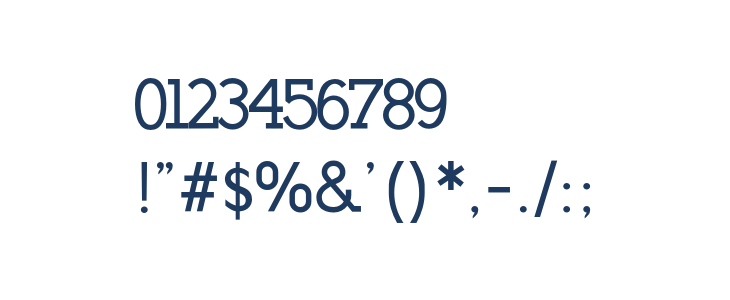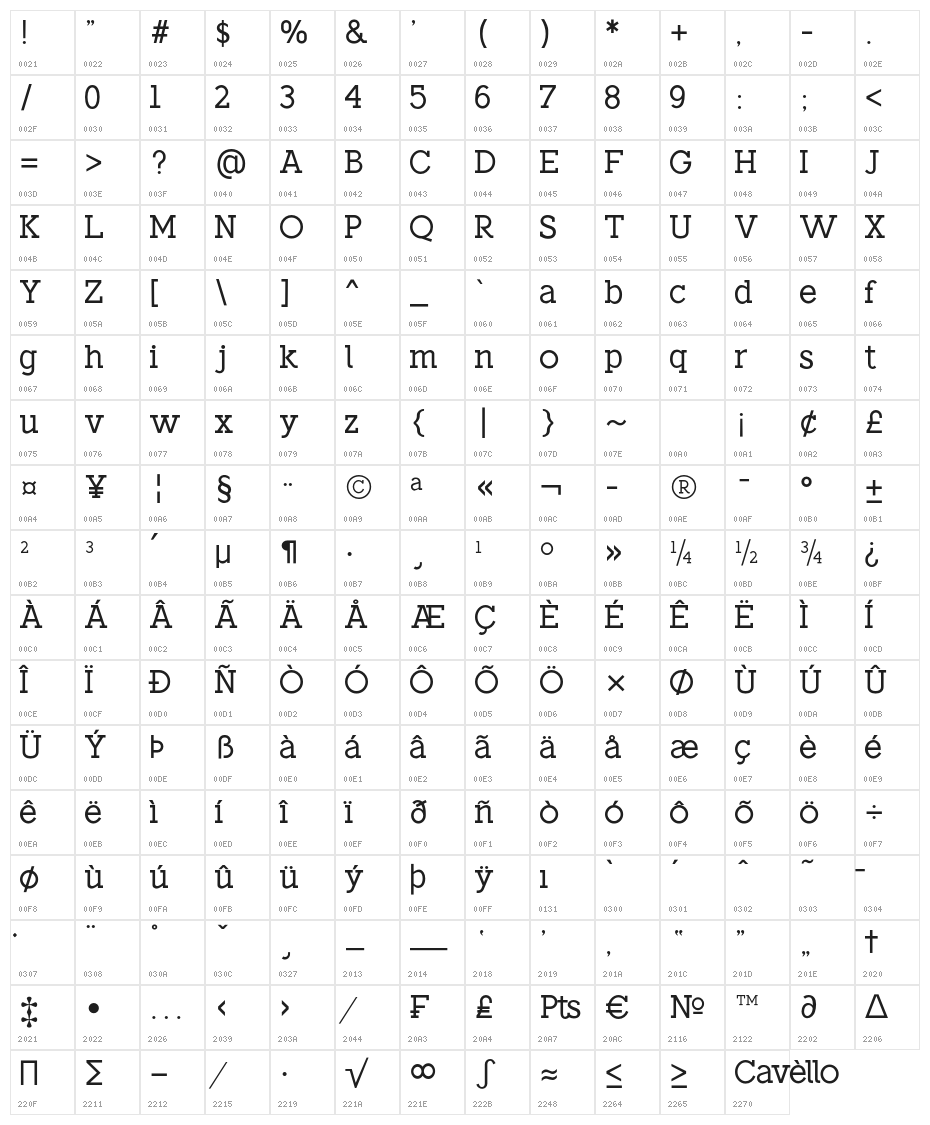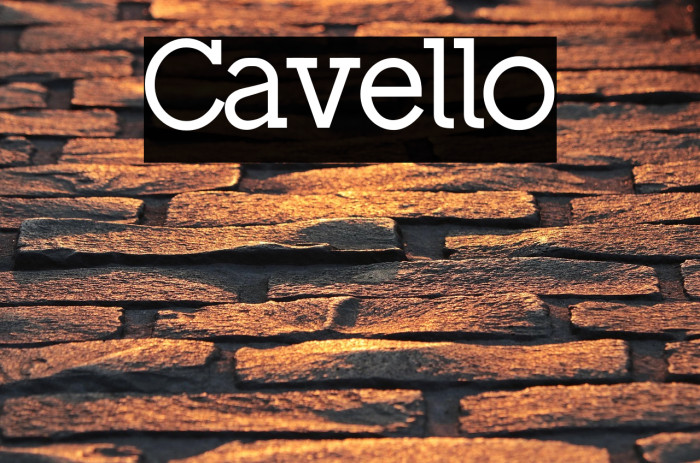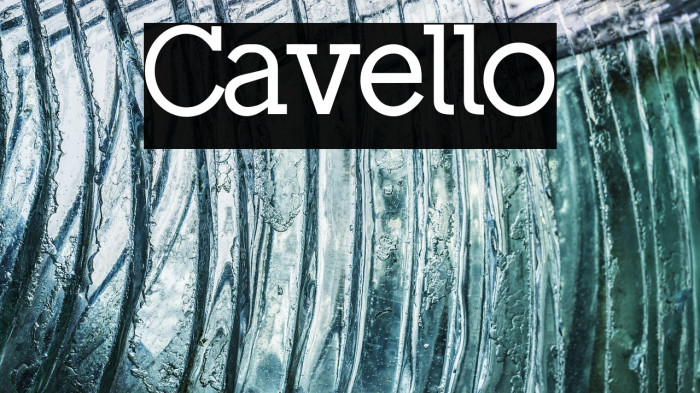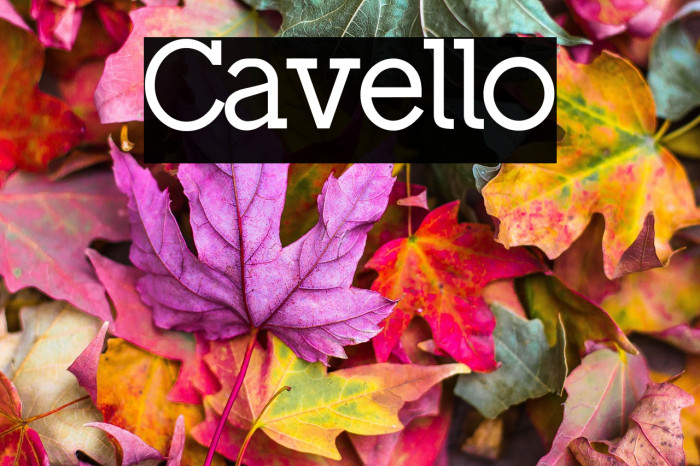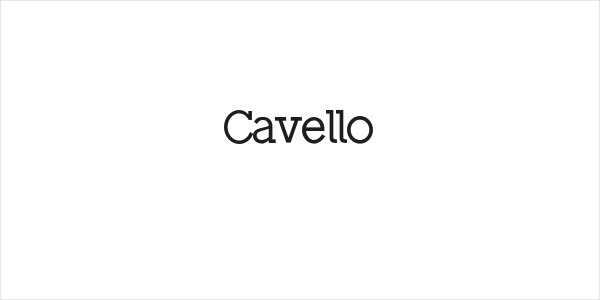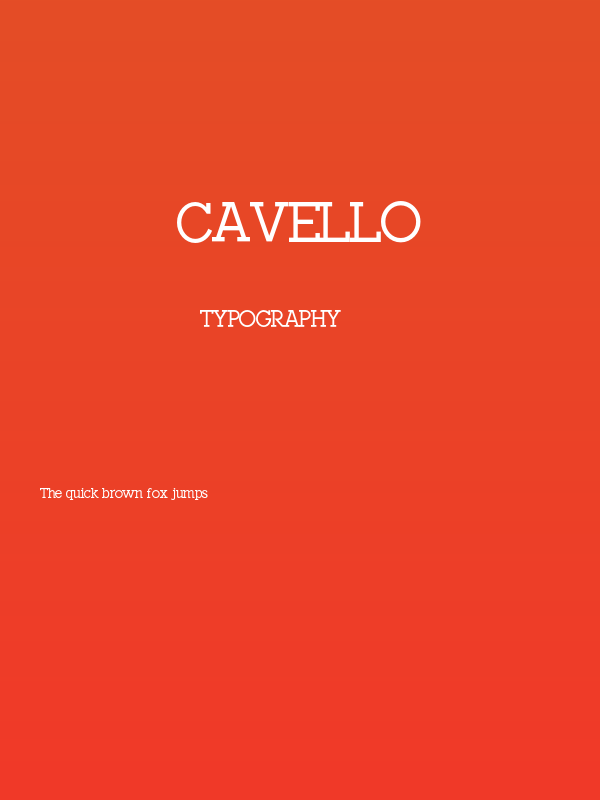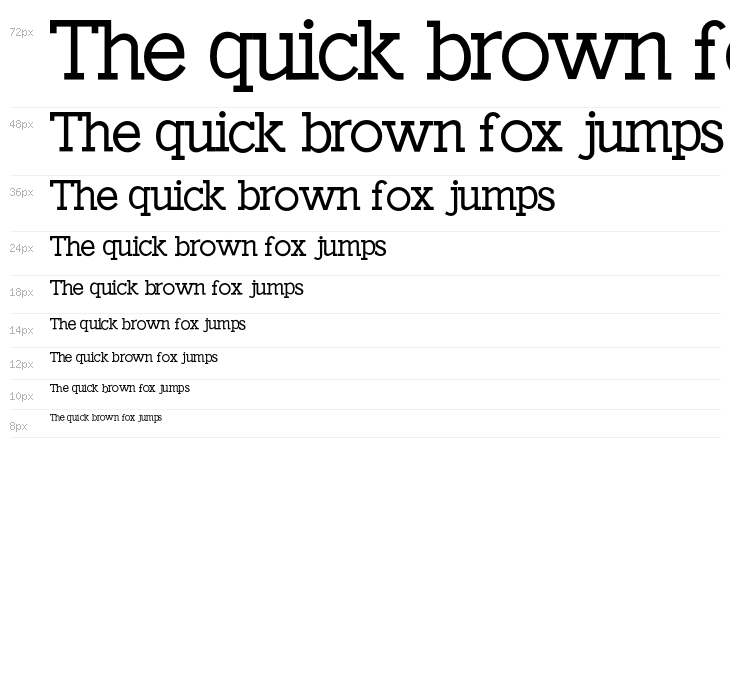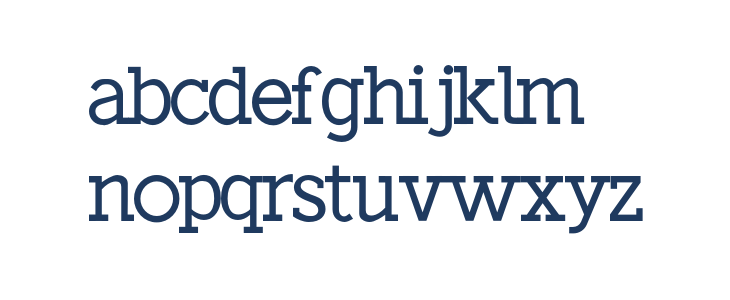
Cavello Font
Cavello Description
This font features a classic serif style with a modern twist. The characters are well-defined with a slight contrast in stroke thickness, giving it a sophisticated yet approachable appearance. The uppercase letters are bold and commanding, while the lowercase letters maintain a balanced and readable form. The numerals are clear and consistent, making them suitable for both display and text purposes. Special characters are elegantly designed, adding to the font's versatility. Overall, this font exudes a timeless elegance, making it suitable for a wide range of applications.